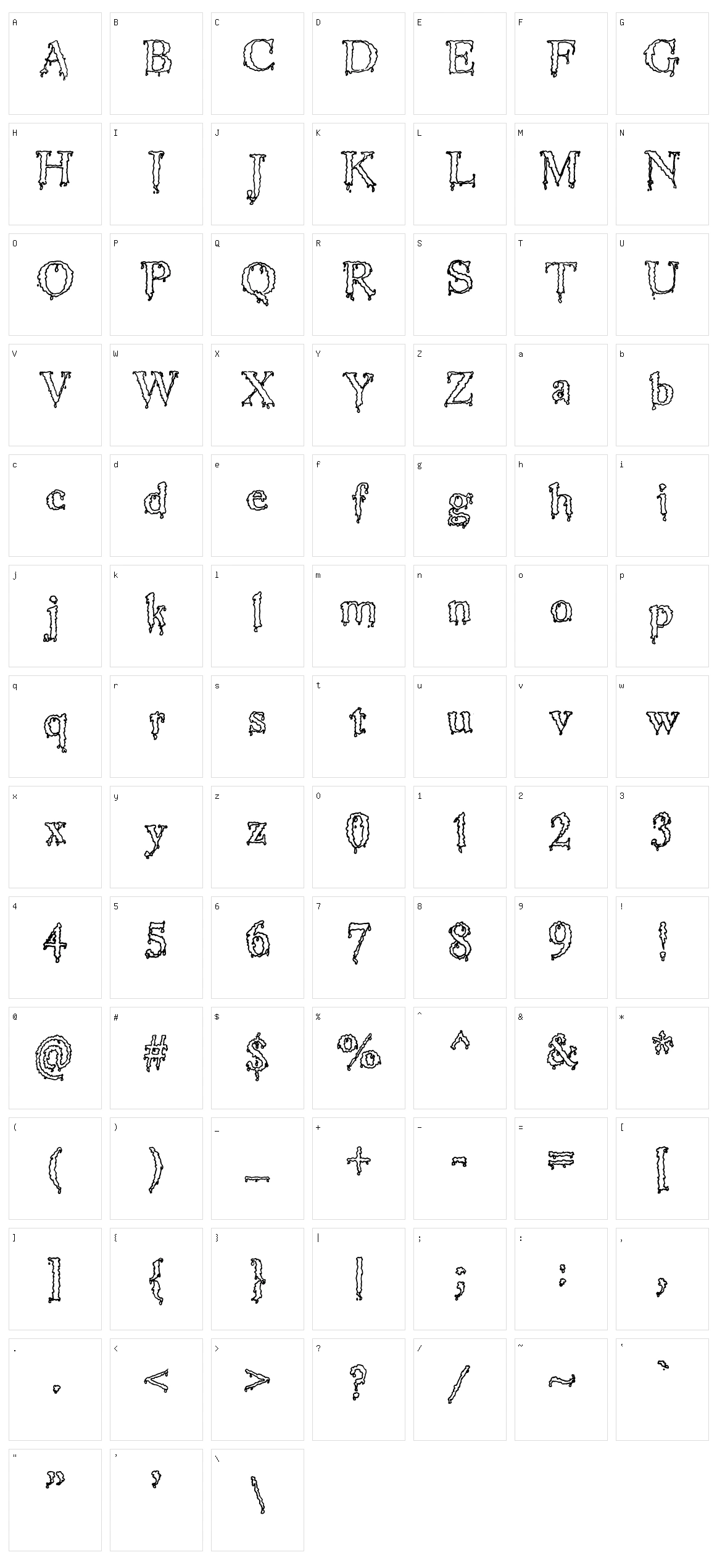
The free font Jinkeez is carefully designed by Jeff Bensch, showcasing a thoughtful balance of creativity and usability and falls under the Horror font style. When you download the ZIP file, it contains only 122.66 KB of font files, making it lightweight and quick to download. Please review the license details below to understand permitted usage and distribution rights. If license information is not available, we recommend using this font for personal projects only or contacting the author directly for commercial usage permissions.